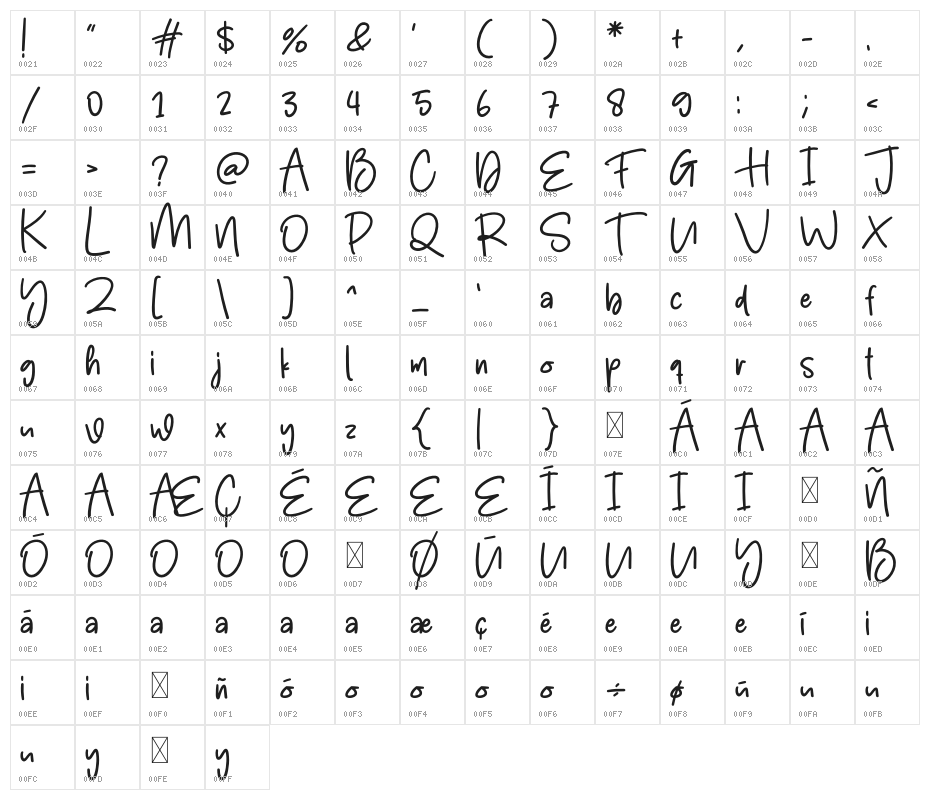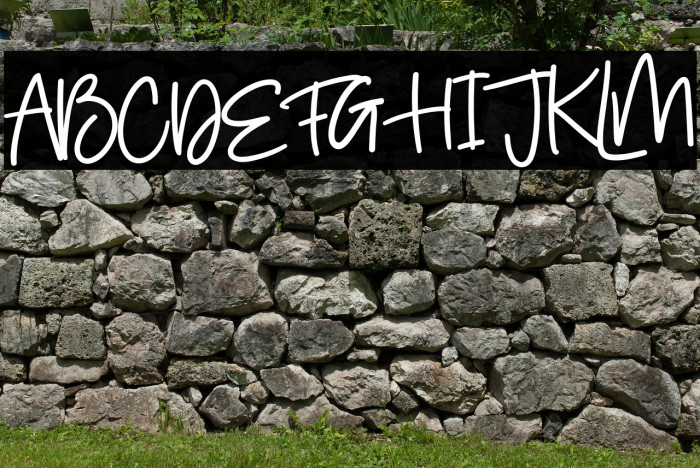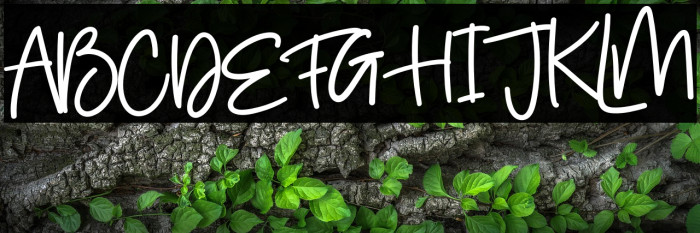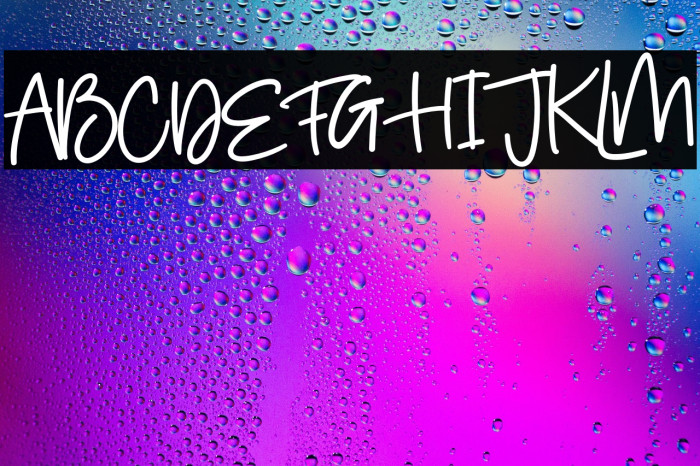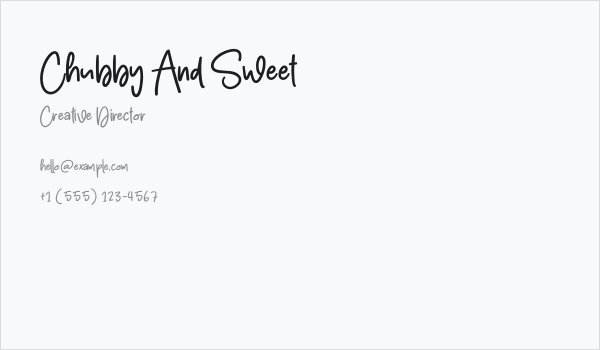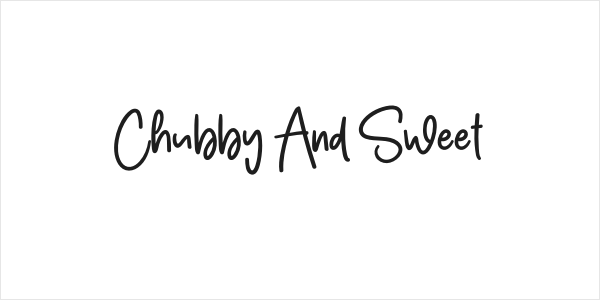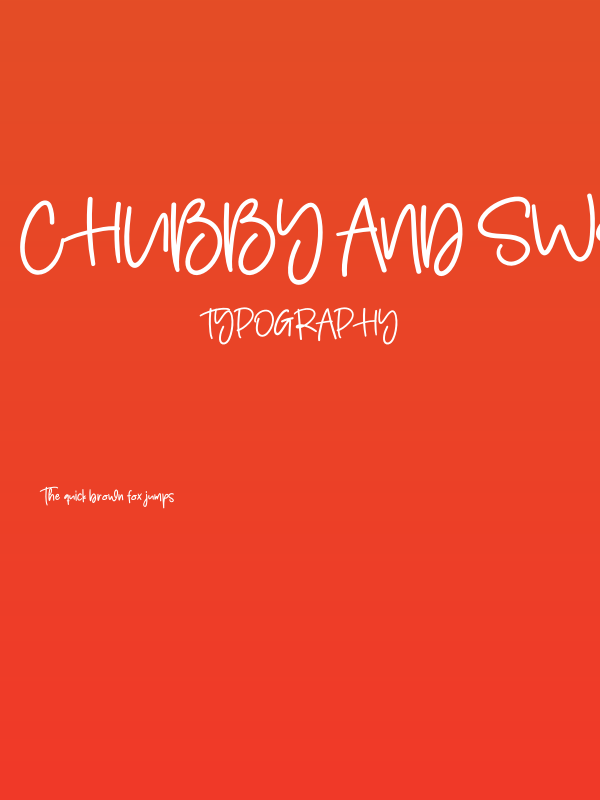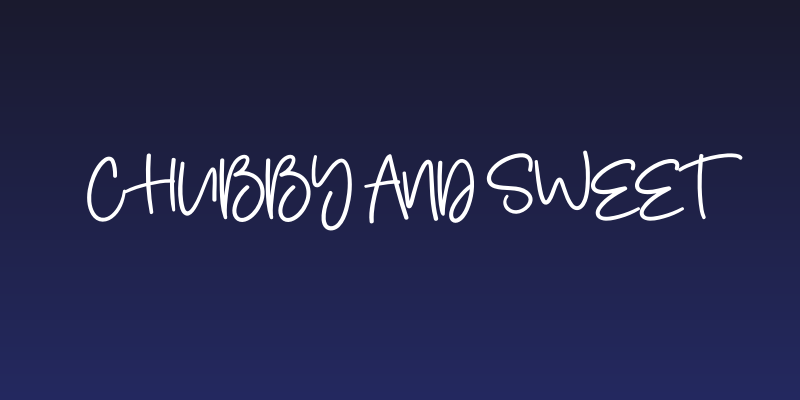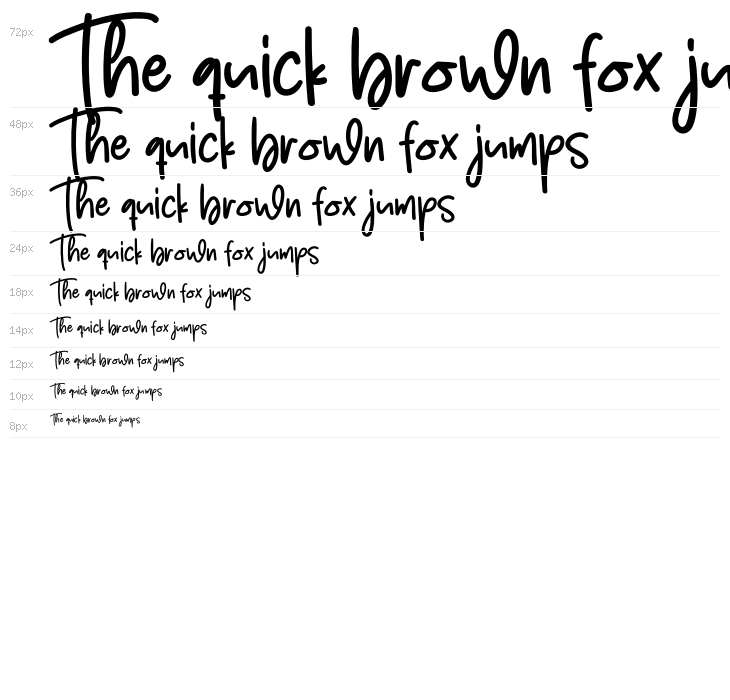
Chubby And Sweet Font
Chubby And Sweet Description
A playful, handwritten font with a casual and friendly appearance, featuring rounded edges and a slightly irregular baseline.
Overall StyleCasual
Use CaseLogos, Headlines, Informal text.
Proposed ProjectsGreeting cards, children's books, casual branding.